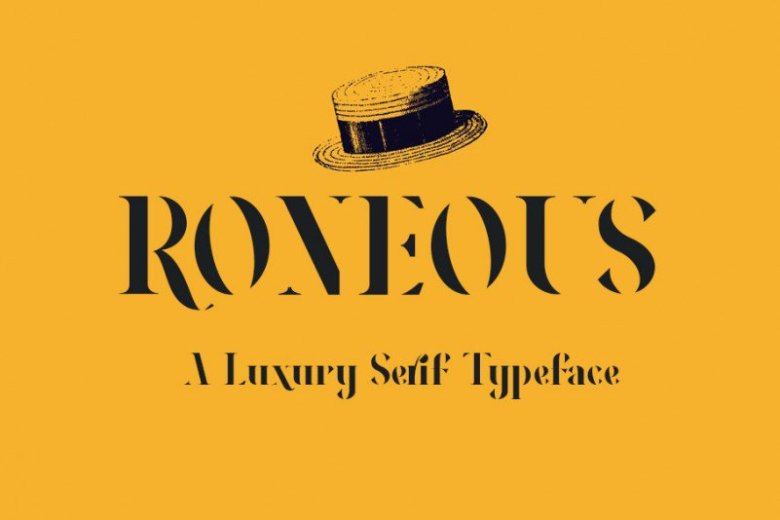
RONEOUS Serif Font
RONEOUS Font – elegant high contrast sans serif. RONEOUS Serif was designed with a high contrast of the strokes and cut the thinner line to get the optical effect but still keep the legibility. It’s perfect for branding projects, home-ware designs, product packaging, magazine headers – or simply as a stylish text overlay to any background image.